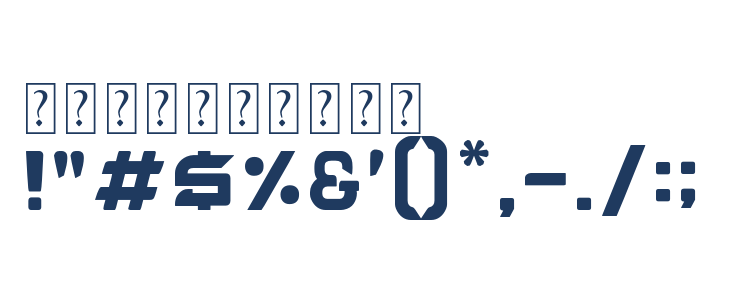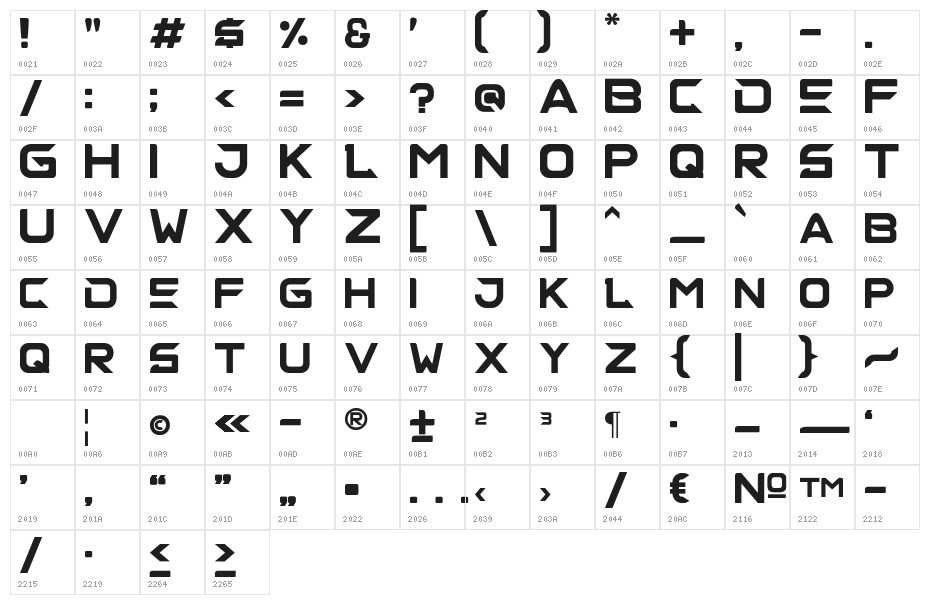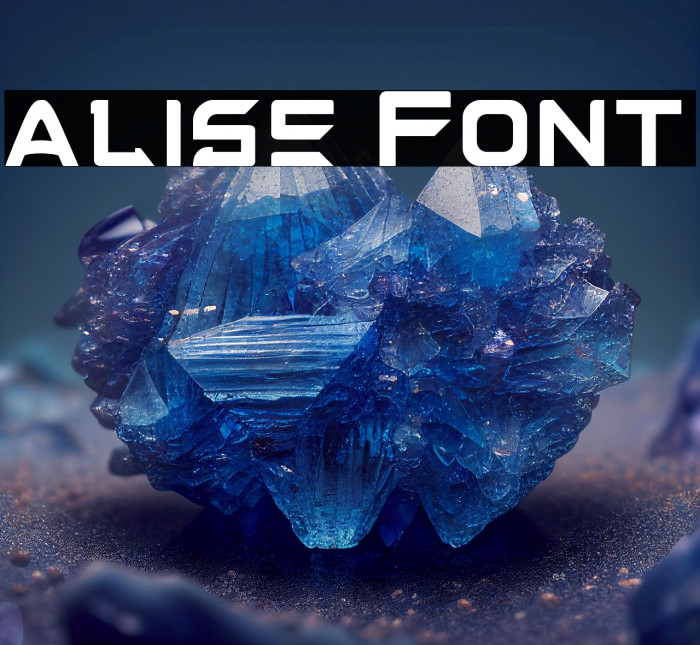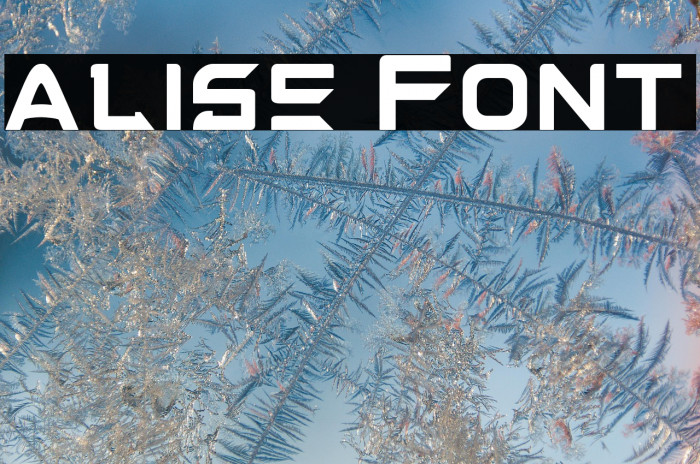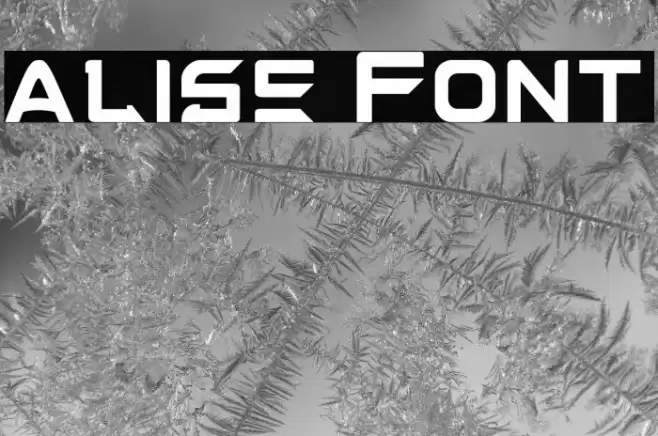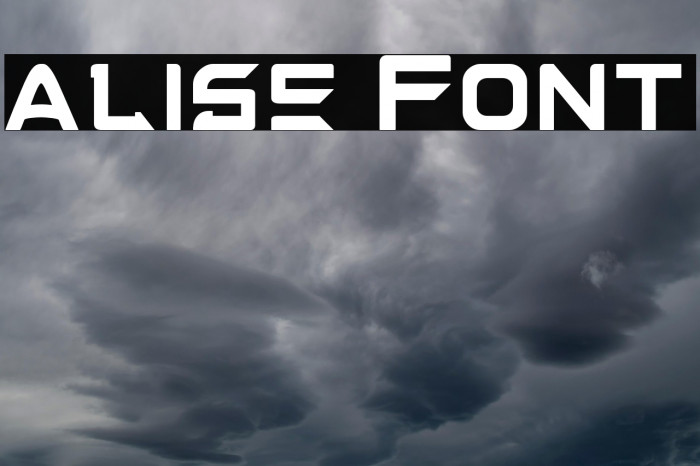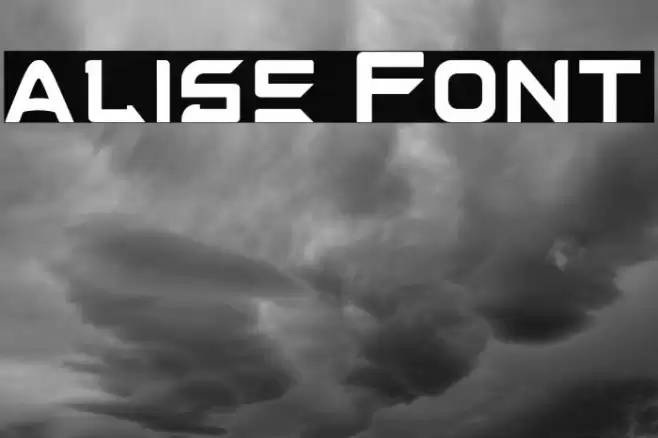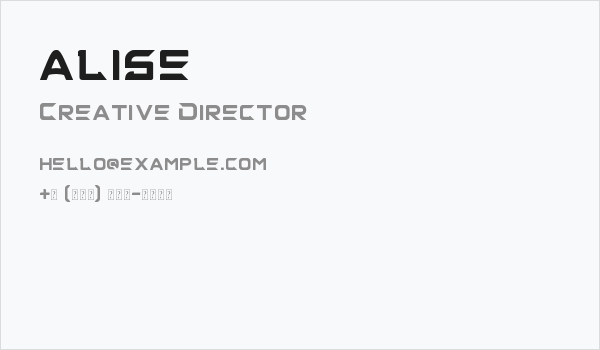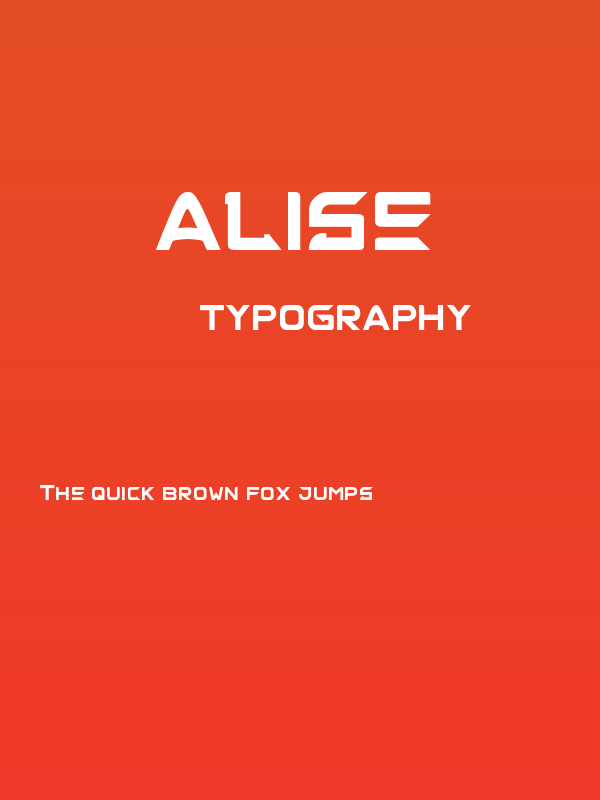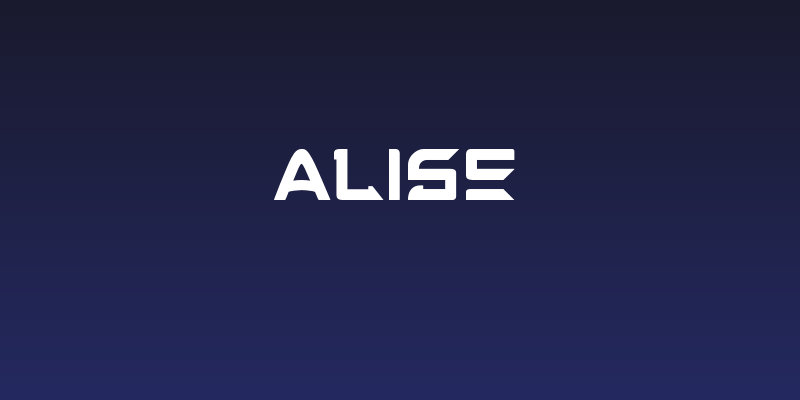
alise Font
alise Description
This font features a bold, geometric design with sharp angles and a futuristic aesthetic. The uppercase letters are distinct with a blocky appearance, while the lowercase letters maintain a consistent style. The numbers are equally bold, ensuring readability and impact. Special characters are designed to match the overall angular theme, providing a cohesive look across all glyphs. The font's strong presence makes it suitable for attention-grabbing designs, while its uniformity ensures clarity.
| Proposed Projects | Ideal for sci-fi themed projects, technology branding, video game titles, and modern posters. |